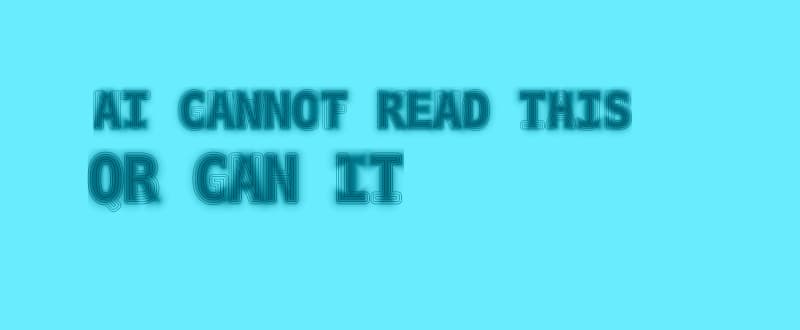
You can't install it, you can't type with it, and you'll probably never use it. And yet, in the space of a week, this tiny font experiment became one of the most talked about design stories of the year.
Eric Lu, an AI researcher and the founder of the AI-powered type tool Mixfont, posted a short clip on X showing a message written entirely in moving dots. A human could easily read it. But when fed the same clip, popular AI models couldn't.
In July 2026 that post passed 17 million views in a matter of days, and the coverage came in thick and fast, both from national media and a long tail of tech blogs.
But the optical illusion at the center of this story is just a tiny part of a much bigger movement, a small but growing category of typefaces built around the goal of creating text that a human can read but machines can't.
This latest creation has been dubbed ghost font, and it's driving a fresh wave of what Lu and the team at Mixfont are calling anti-AI fonts.
What is an anti-AI font?
Anti-AI fonts are experimental typefaces and visual text systems designed to remain readable to people while making machine reading more difficult. Some are real font files. Others aren't fonts at all in the traditional sense. What they share is a target: the gap between what a person sees and what a machine reads.
It's tempting to believe the goal of these fonts is encryption of some form, but that's far from the truth. Nobody is claiming they're secure in the way a password or a cipher is. Instead, the goal is closer to a speed bump, to make a machine's job harder or slower without making a human's job harder.
The term has been popularized by Lu and the team at Mixfont, who use it to describe an ongoing series of experiments. He states his motivation isn't so much to "stop AI", but rather to "test the boundary" of it. He wanted to move past the binary framing of AI as simply good or bad, and instead look closely at where humans and AI see the same thing differently.
The idea isn't new either. Designers and researchers have been building machine-resistant typography for more than a decade. What's new is that the opponent changed, and the current wave has a name.
The four ways anti-AI fonts actually work
Every project in this space attacks the same problem from a different angle. Understanding which technique is being used tells you a lot about what it can and can't do.
| Temporal encoding | Hides the message in motion across video frames. No single frame contains readable text. Used by ghost font. |
| Spatial-frequency obfuscation | Layers two letterforms at different levels of sharpness so the reading changes with viewing distance. Used by decoy font and our anti-AI text maker. |
| Glyph remapping | Swaps what a character code renders as, creating a mismatch between the underlying text and what appears on screen. Used by the poisoned typeface research. |
| Anti-OCR camouflage | Buries letterforms under visual noise and false marks to defeat character recognition. Used by ZXX in 2013. |
How ghost font hides a message in motion
Ghost font is the project that recently went viral on X. And, although it has the word font in its name, it's not really a font in the traditional sense. There's no installable file for it, no TTF, and no character set, which are usually a key part of a font set.
Instead, you type a short phrase into a browser tool and it renders your message as a short video, almost like a field of moving dots. If you pause the video, the text disappears completely.
The letters only exist across time. A human brain is very good at tracking motion, so when the dots that make up a letterform drift in a slightly different direction than the dots in the background, the shape seems to almost lift off the screen.
Most AI vision systems, by contrast, read video by breaking it into individual frames and analyzing each one as a static image. Since no single frame contains a readable letter, the model has nothing to latch onto. Ghost font also embeds a decoy phrase into the static noise itself, engineered to give a confidently wrong answer to any system that tries to read a single frame instead of the motion as a whole.
Lu says he tested the tool on several current AI models, and it consistently beat their attempts to read the hidden message, as long as the AI wasn't given extra hints.
How decoy font puts two messages in one glyph
Mixfont's second experiment, decoy font, tackles the same problem from a different angle. Instead of a video, it's a downloadable TTF file, built on the open-source DejaVu Sans Mono typeface, that behaves like any other font you'd install and type with.
The trick is buried inside the letterforms themselves, using a technique called a hybrid image. It's the same idea behind that famous illusion where a picture looks like Albert Einstein up close, but turns into Marilyn Monroe when you step back, two images blended together in a way that tricks your eye depending on how close you are and how focused your view is.